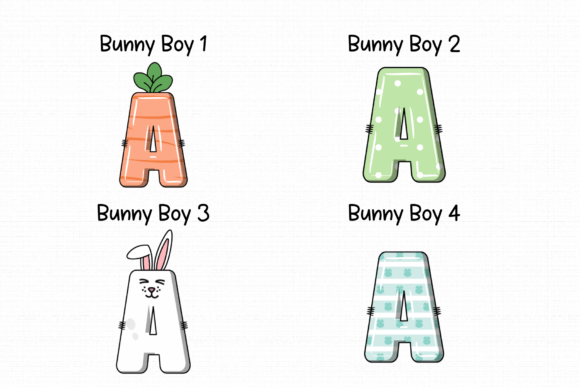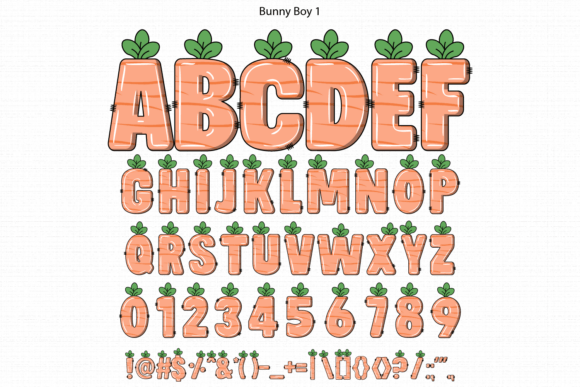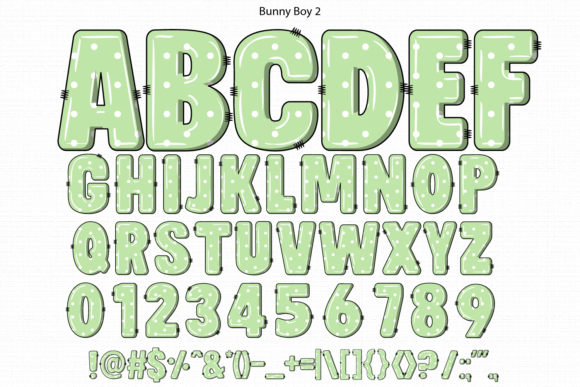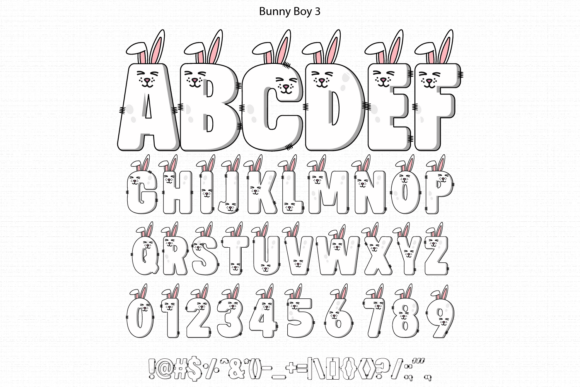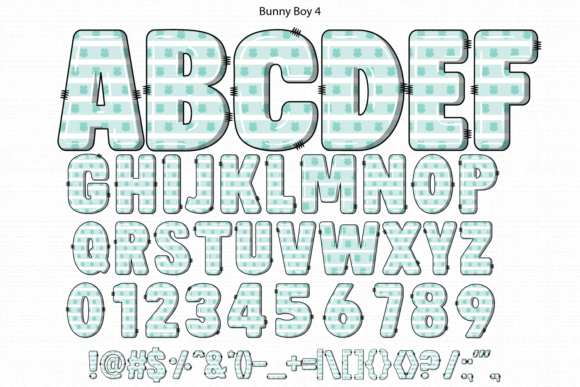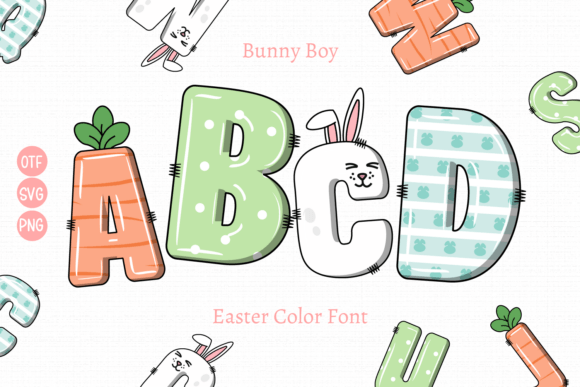
Introducing Bunny Boy Font: The Ultimate Easter-Inspired Design Companion
Are you ready to add a dash of Easter charm to your designs? Look no further than Bunny Boy Font, a vibrant and playful typeface that’s perfect for a multitude of creative projects. In this article, we’ll dive into the world of Bunny Boy, exploring its features, benefits, and uses, as well as provide tips on how to get the most out of this delightful font.
A Font that Embodies Easter Charm
Bunny Boy Font is a one-of-a-kind typeface that captures the essence of Easter with its unique blend of charm and genuineness. This font is designed to bring a smile to your face and a touch of whimsy to your designs. Whether you’re working on a blog post, logo, branding design, or social media content, Bunny Boy is the perfect companion to help you create engaging and festive designs.
So, what can you create with Bunny Boy Font? The possibilities are endless! Here are just a few ideas to get you started:
- Blog Posts: Add a playful touch to your articles and blog posts with Bunny Boy’s delightful texture.
- Logos and Branding: Create memorable logos and branding designs that stand out from the crowd.
- Promotional Content: Make your promotional materials, such as flyers, brochures, and posters, more engaging and eye-catching.
- Party Invites: Design festive and fun party invitations that set the tone for a memorable celebration.
- Greeting Cards: Create heartfelt and personalized greeting cards for Easter and beyond.
- Coordinated Planners: Add a touch of Easter charm to your planners and organizers.
- Photo Compilations: Make your photo compilations and albums more special with Bunny Boy’s playful font.
- Festive Ornaments: Design beautiful and unique festive ornaments for Easter and other celebrations.
Tips for Using Bunny Boy Font
To get the most out of Bunny Boy Font, here are some tips to keep in mind:
- Experiment with Colors: Try out different color combinations to match your brand or design theme.
- Mix and Match: Combine Bunny Boy Font with other fonts to create unique and interesting typography.
- Pay Attention to Size: Adjust the font size to ensure it’s legible and visually appealing in your design.
- Have Fun: Don’t be afraid to get creative and try new things with Bunny Boy Font!